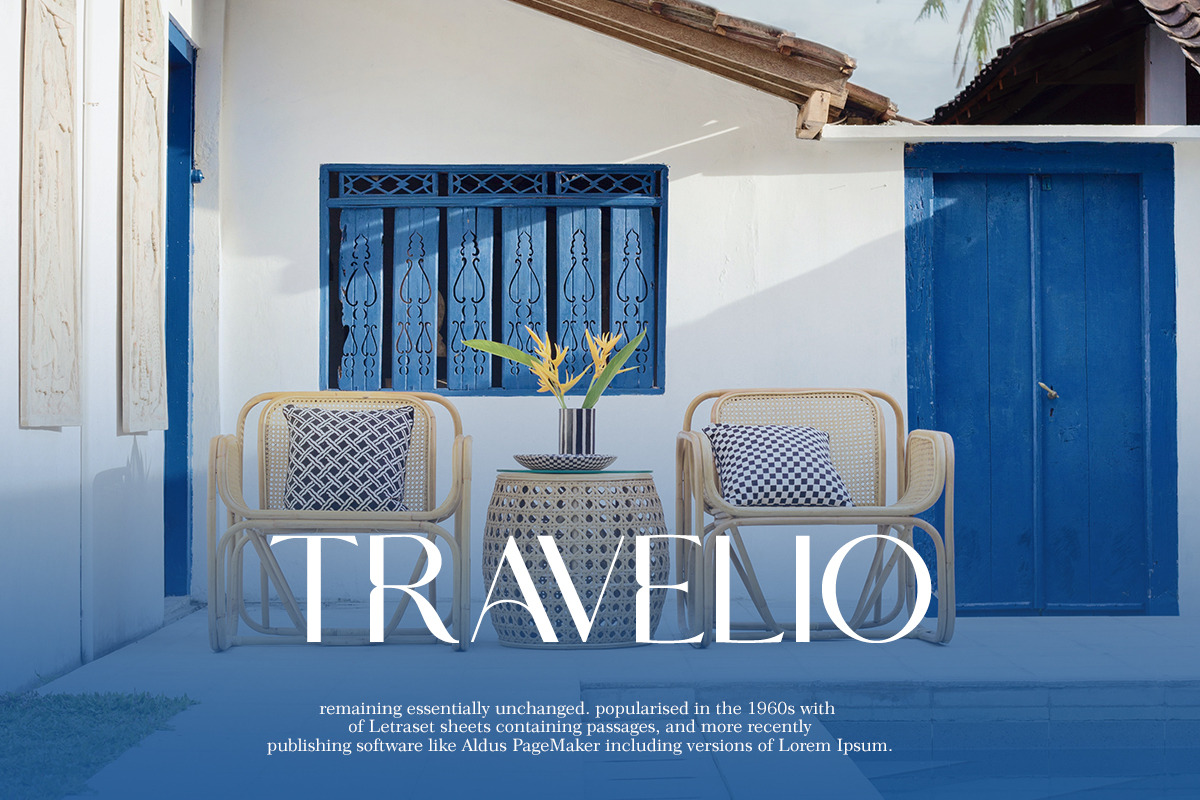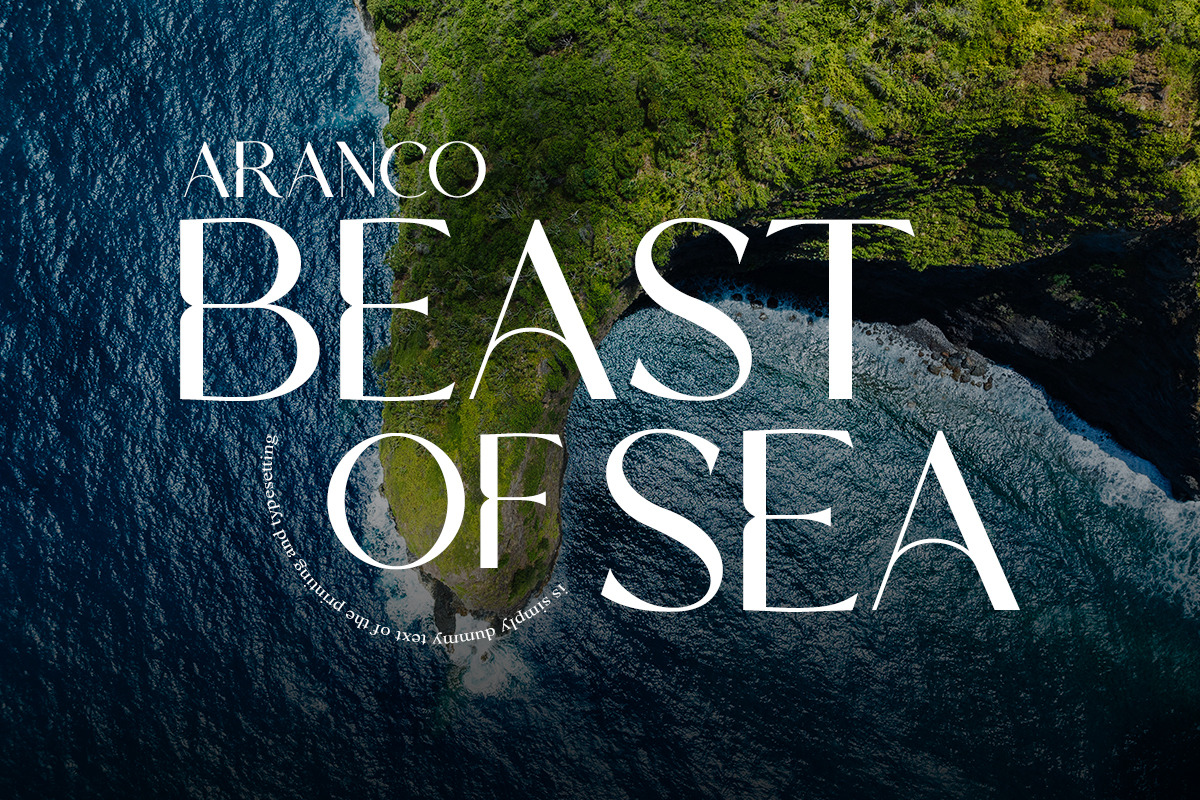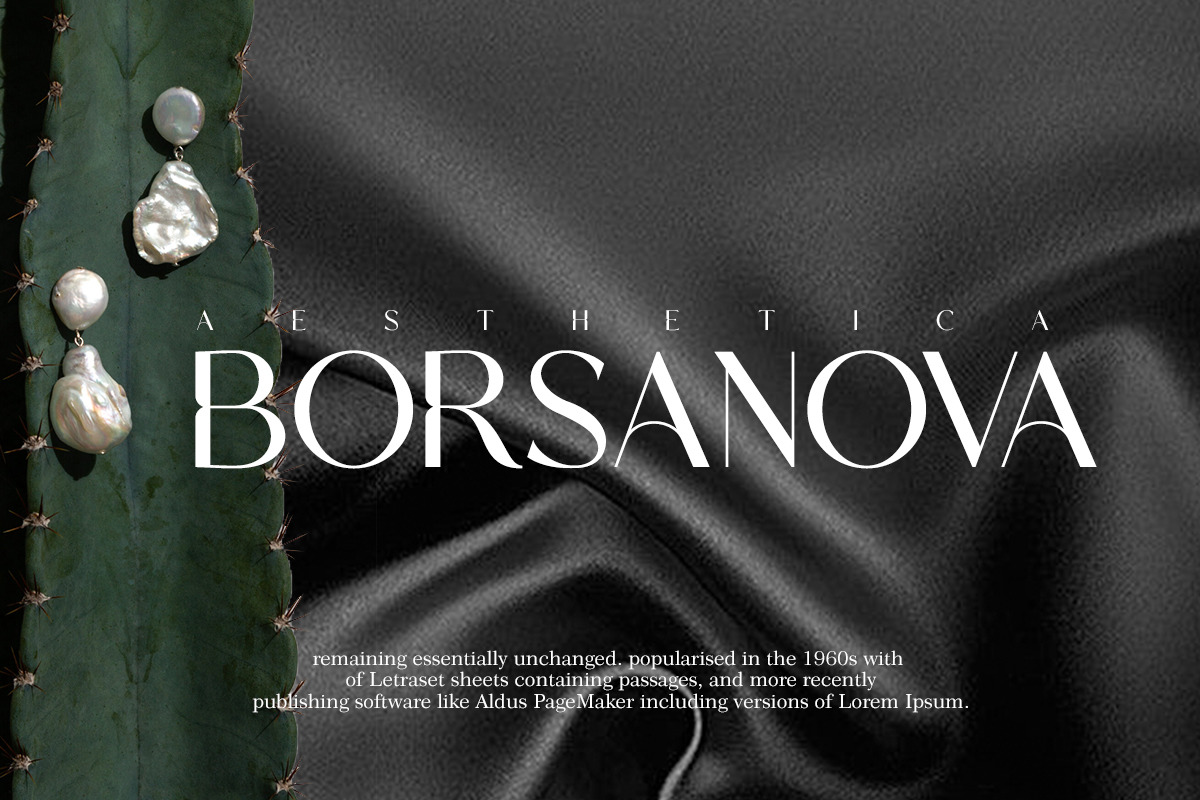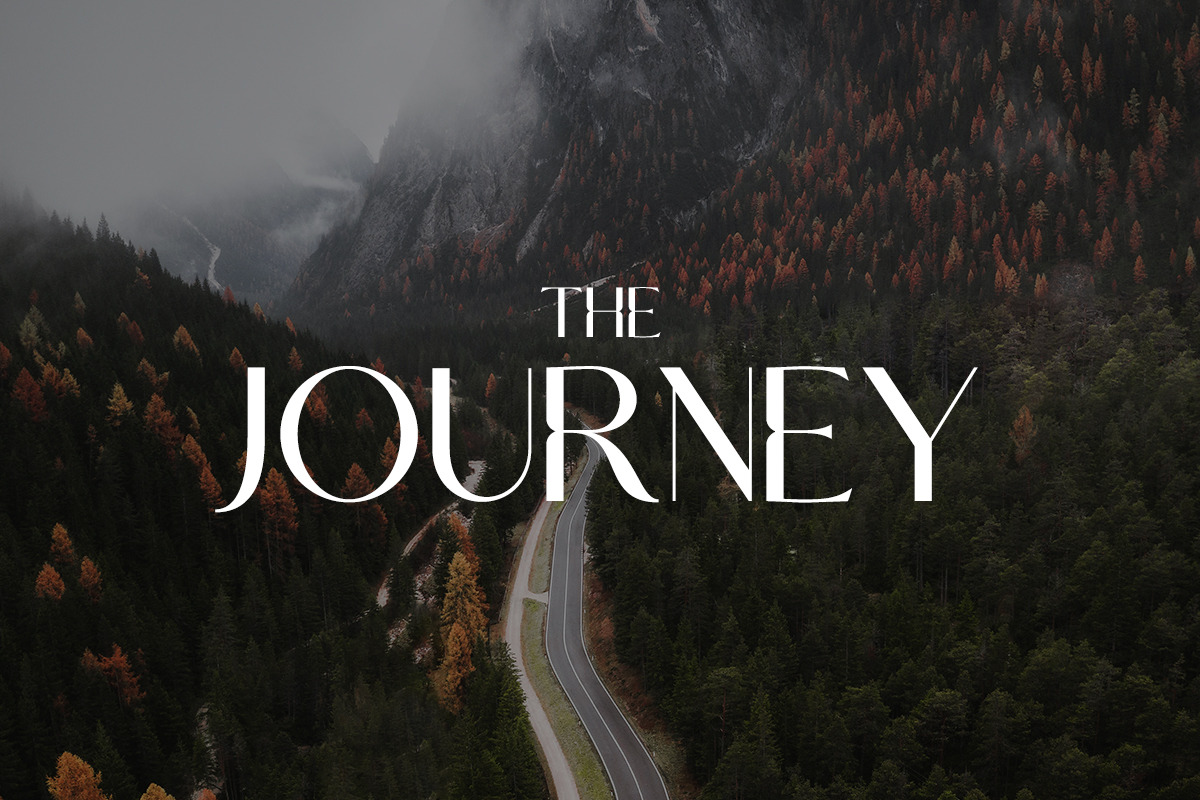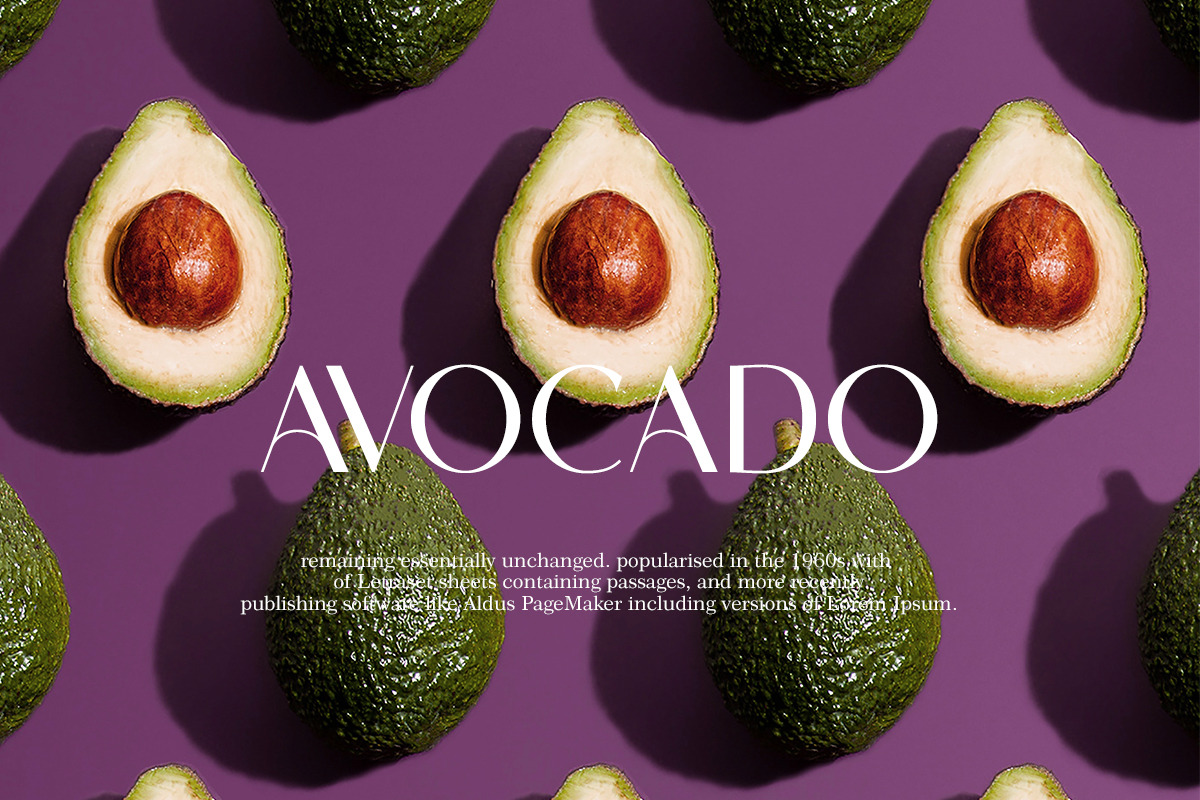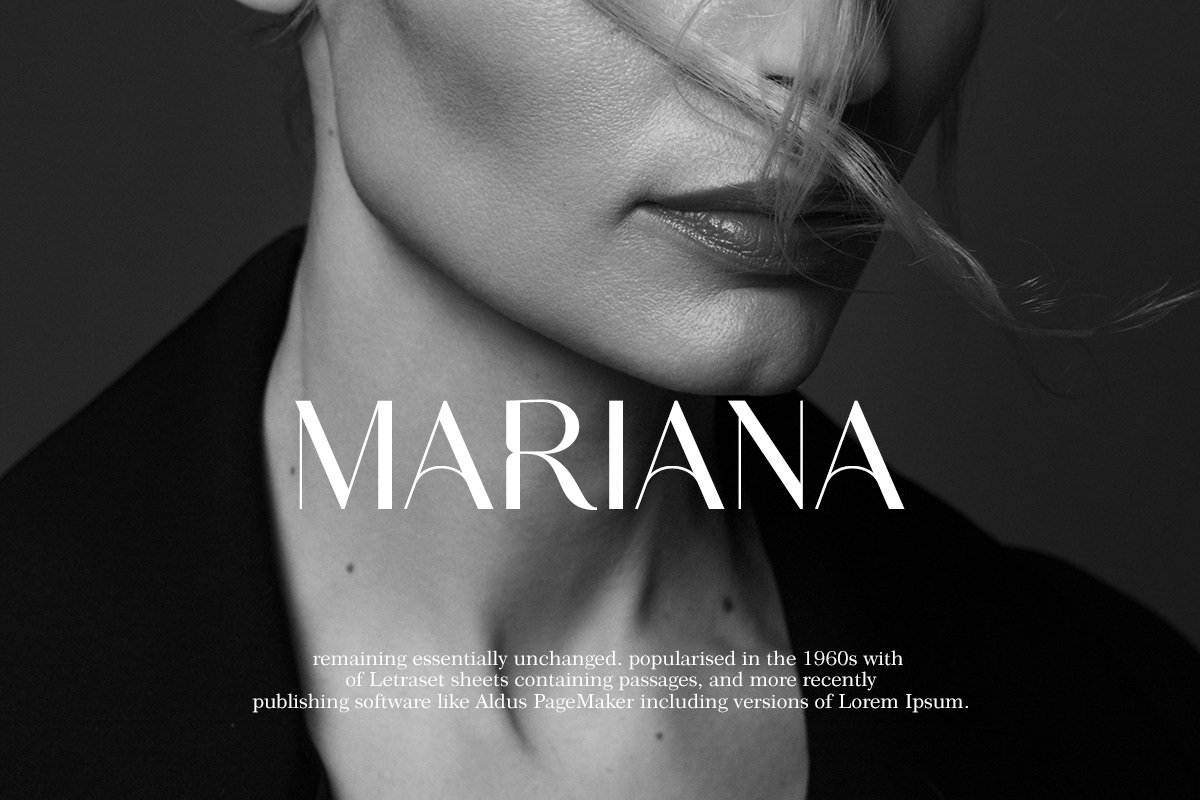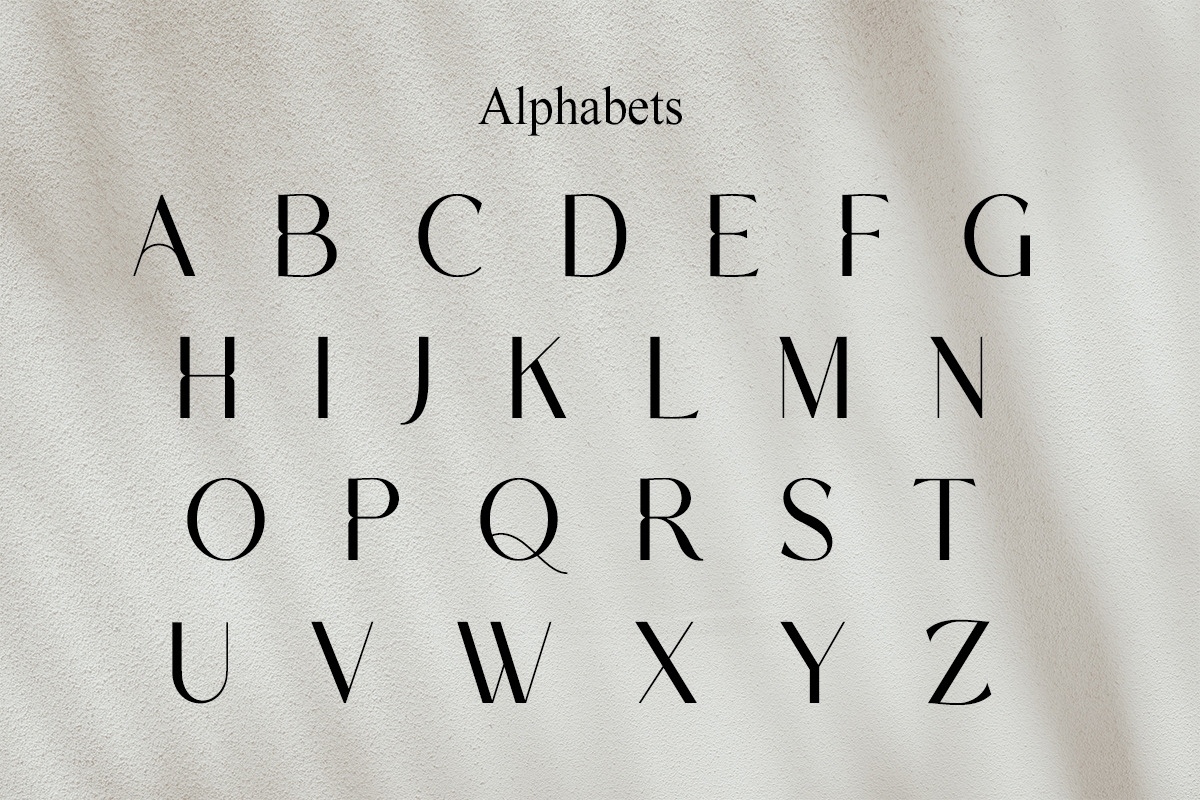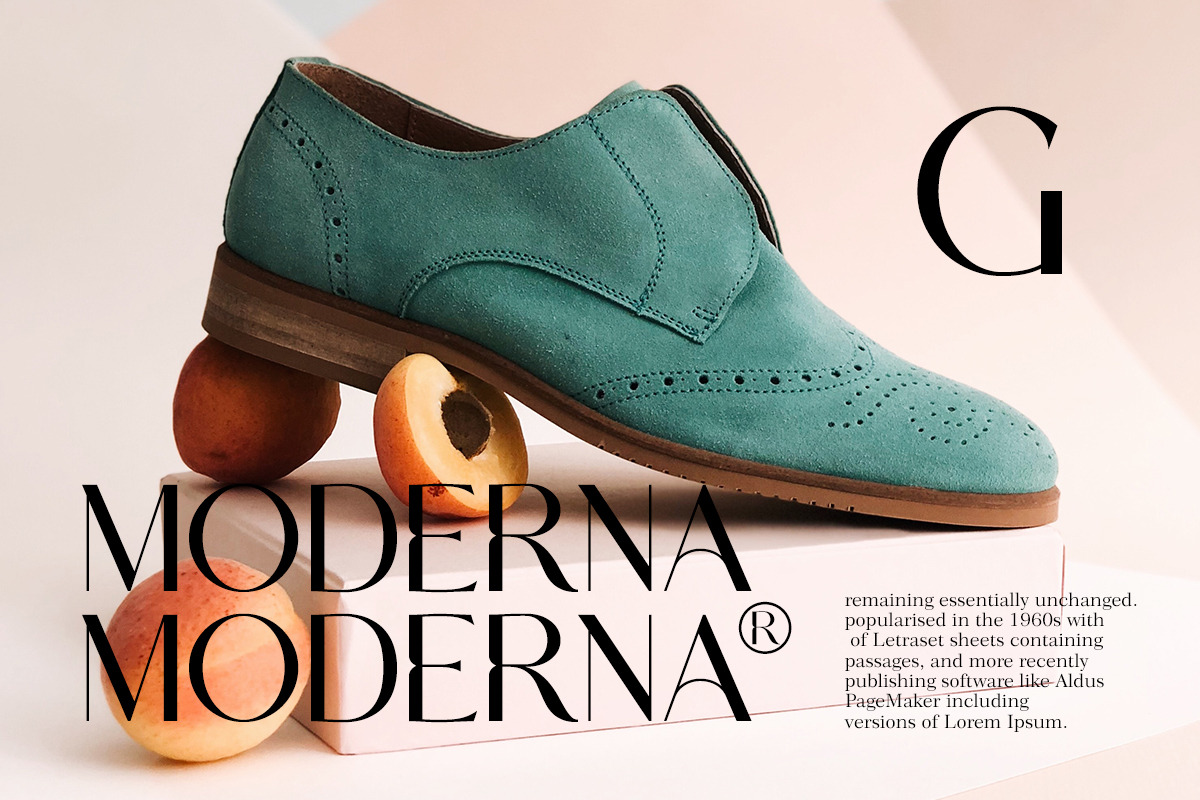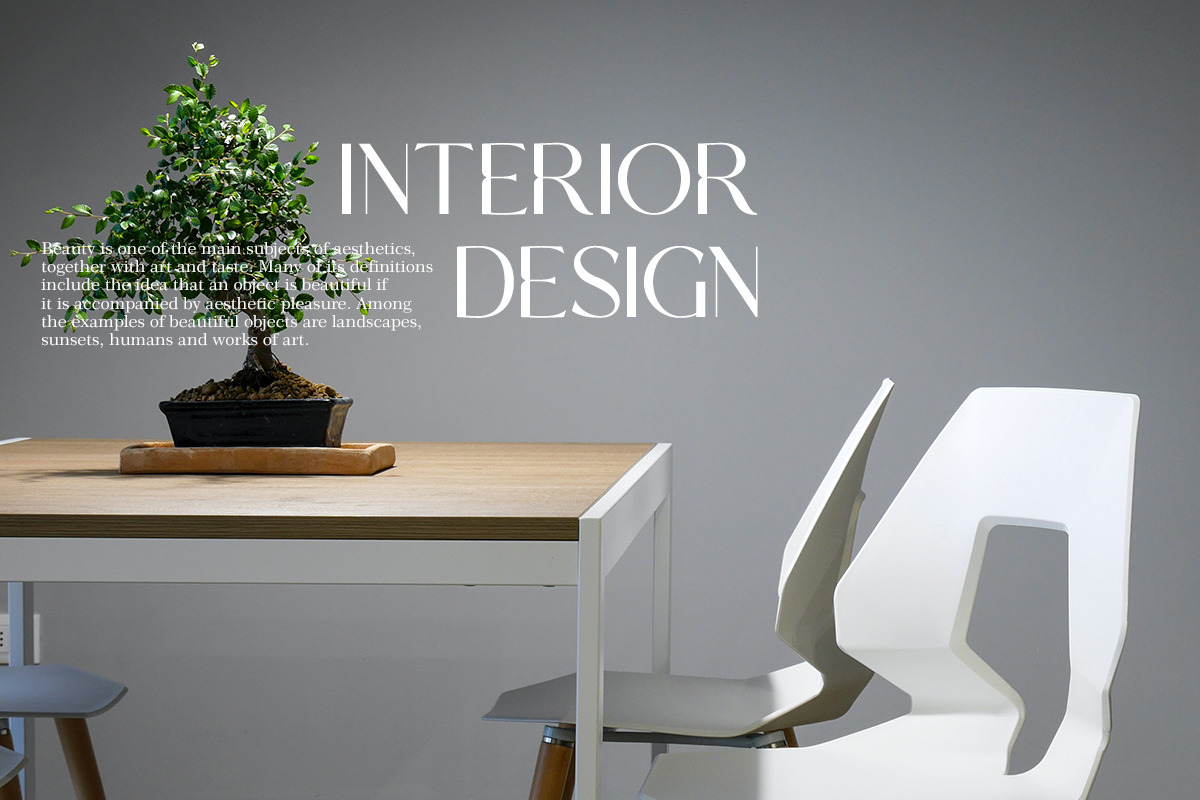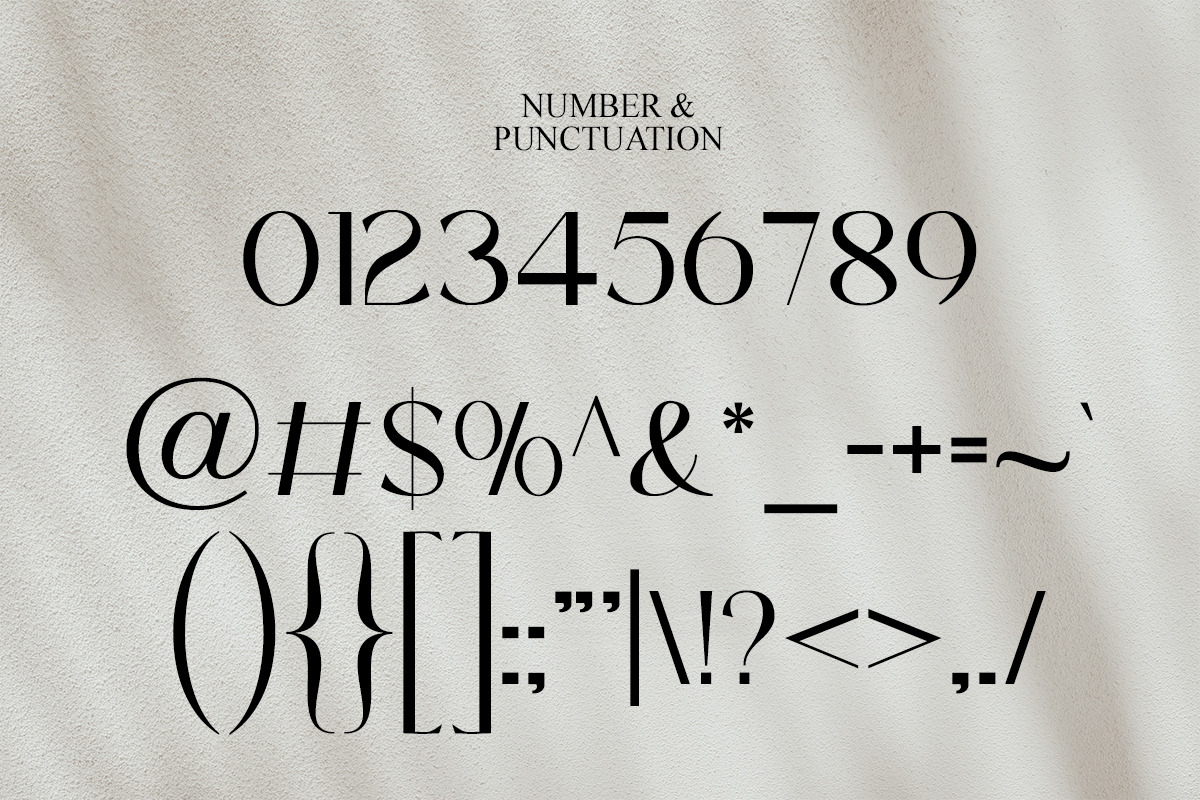
Azahra | Modern Stylish
Azahra fonts includes uppercase letters, numerals, a large range of punctuation. Sans Serif font with modern stylish style. Created for poster, web design, branding, illustrations, badges and some other works.